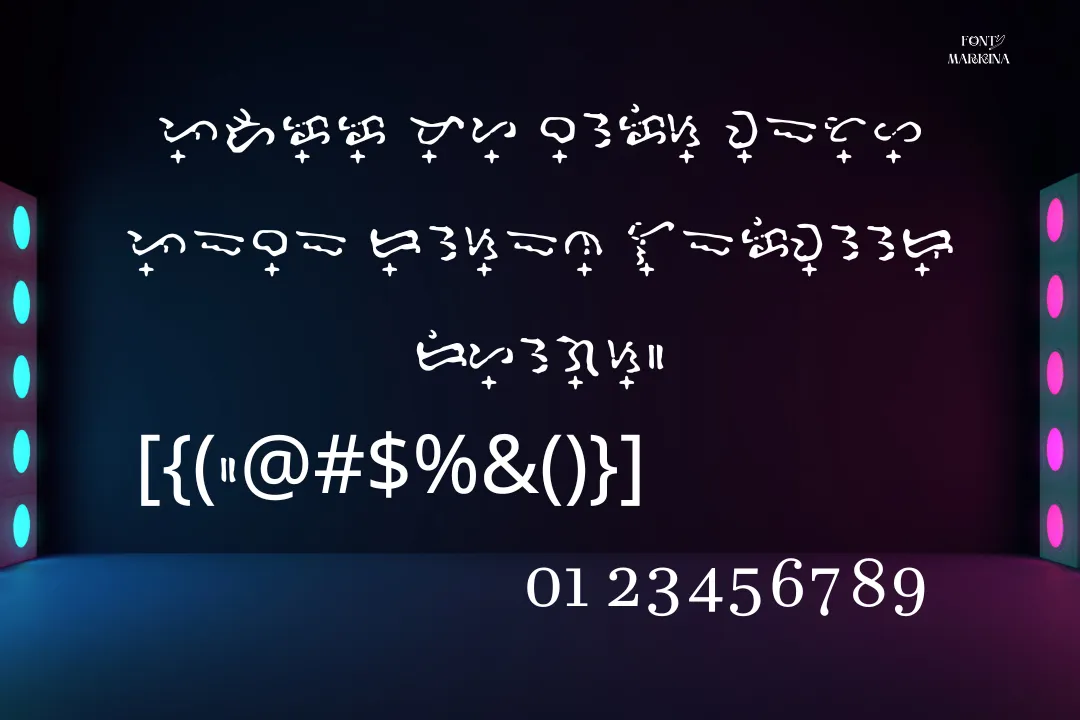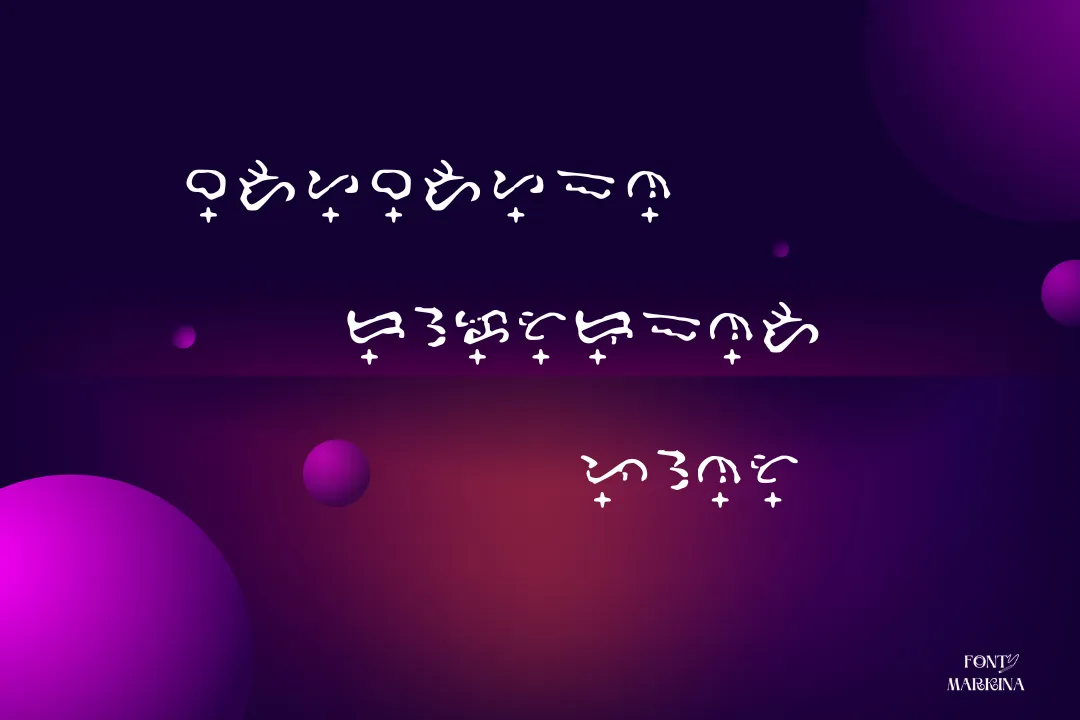
Baybayin Doctrina Font is totally different as compared to other typefaces. Its trendy look makes it impressive. This typeface falls in the classification of the script family. Johnrel Lor a brilliant designer create this font family.
This texture is known for its two classic styles Bold and regular. This typography is commonly used for Adobe and CorelDraw. Because of the large X height and support to different languages, this texture is famous all across the globe.
Uses of Baybayin Doctrina Font
This worth appreciating texture is used for a wide variety of places according to the exact need of clients. In all brands, this typeface is used for many fantastic tasks like making logos designs, Kids’ toys, and writing on decoration pieces.
You can also use this texture by making a pairing with Amarillo Font and enjoy its outstanding results. This typography is also useful for a variety of newspaper articles. For fashion magazines this family is well suitable, In business sectors the use of Baybayin Doctrina Font is familiar.
| Name | Baybayin Doctrina Font |
| Designer | Johnrel Lor |
| Date | 2020 |
| Style | Script |
What is the type of Baybayin Doctrina Font?
It lies in the category of the script font family. This texture is known for its two classic styles Bold and regular.
who is the manufacturer of Baybayin Doctrina Font?
Johnrel Lor a brilliant designer create this font family. He is very famous for creating different fonts.